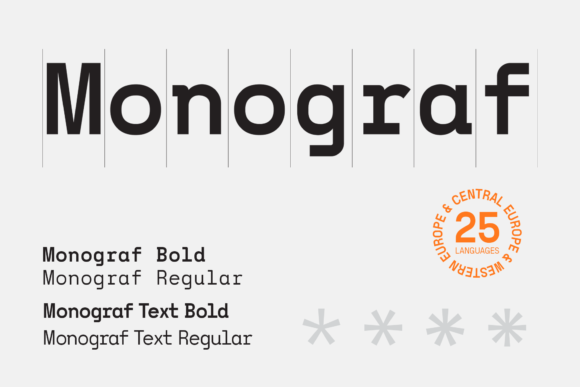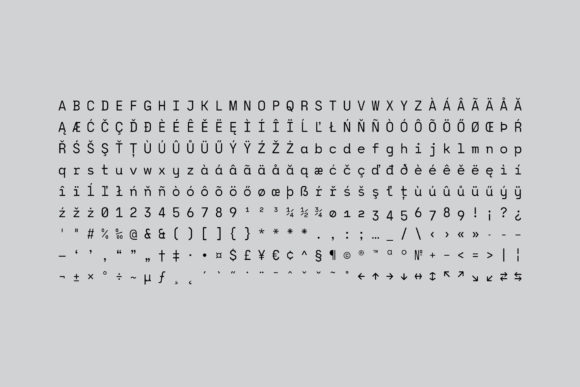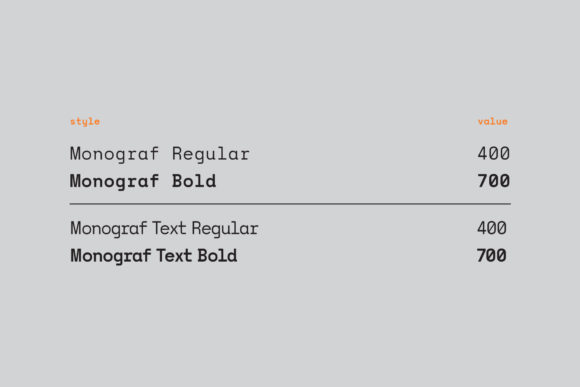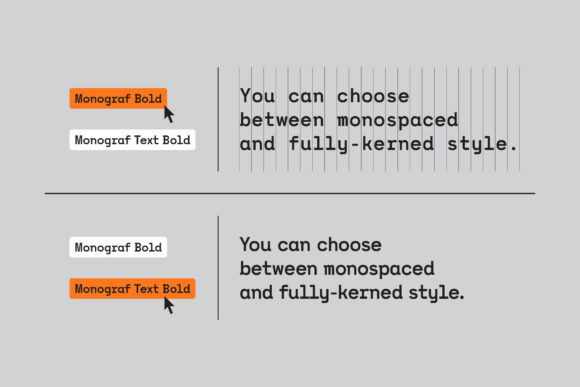
Monograf Font: Modern Sans Serif for Logo Design & Branding
About the Monograf Font
Experience the unique personality of Monograf Font, a font designed for impact. Monograf is a cool and neat sans serif font. No matter the topic, this font will be an incredible asset to your fonts’ library, as it has the potential to elevate any creation.
Monograf’s clean lines and geometric construction make it ideal for headlines, logos, and short-form text in branding projects. It works exceptionally well in posters and packaging design where impact and readability at larger sizes are crucial. Avoid using Monograf for body text or lengthy paragraphs; its minimalist nature can become monotonous at smaller sizes.
Its core personality is modern and confident, lending itself well to brands projecting a sophisticated and technologically advanced image. Consider pairing Monograf with a warm, slightly rounded serif like Playfair Display for a classic yet contemporary feel, or a playful script font such as Great Vibes for a touch of elegance and personality.
A geometric sans-serif like Futura would also create a cohesive and modern pairing, reinforcing Monograf’s clean aesthetic. Conversely, pairing it with a highly decorative or overly playful font could clash with its inherent simplicity.